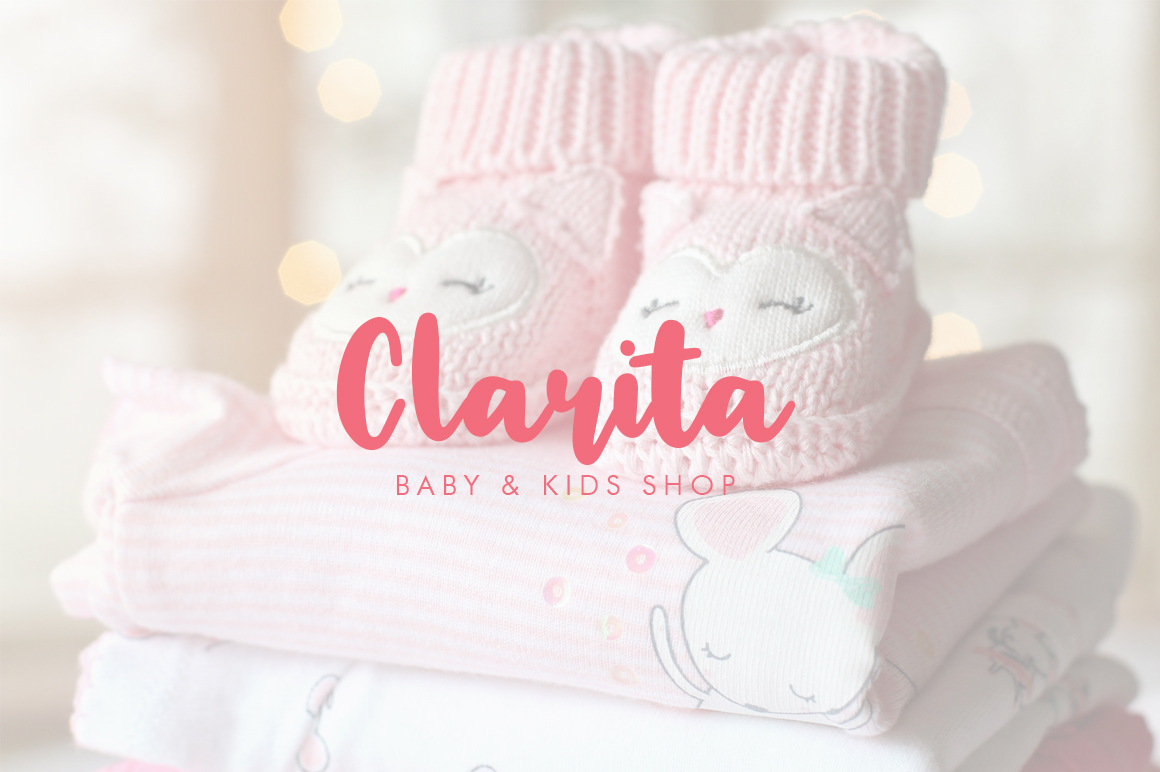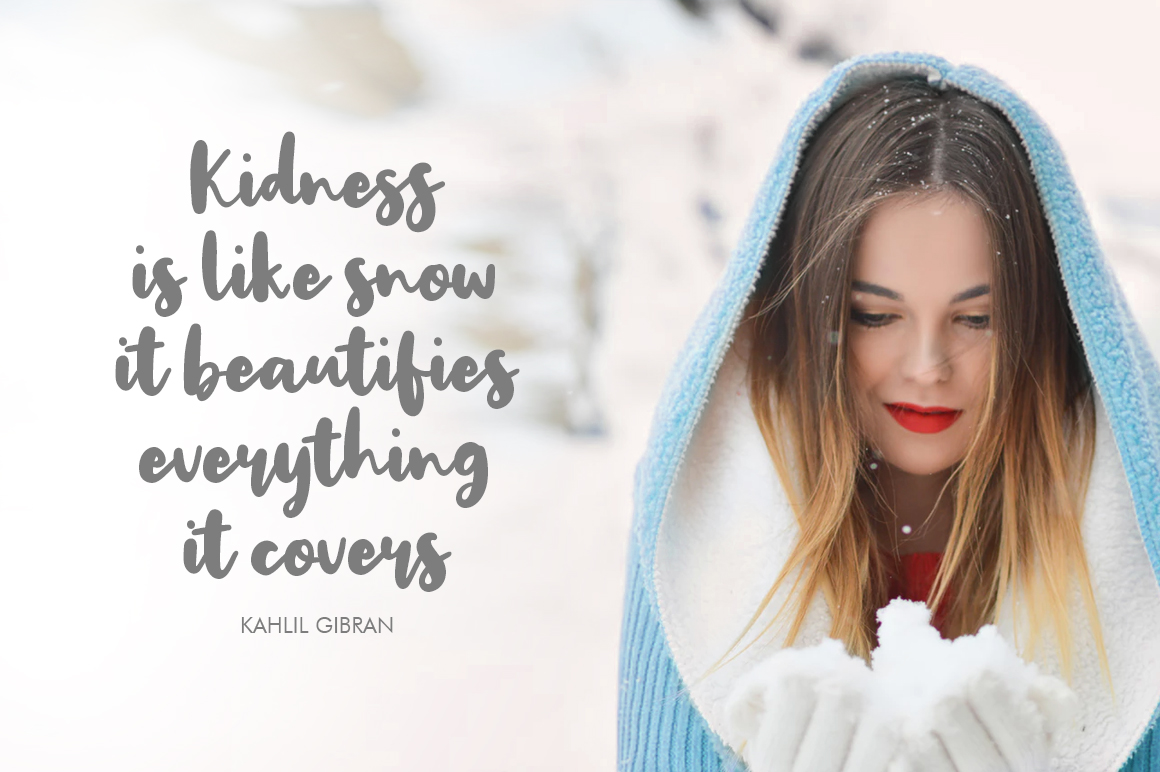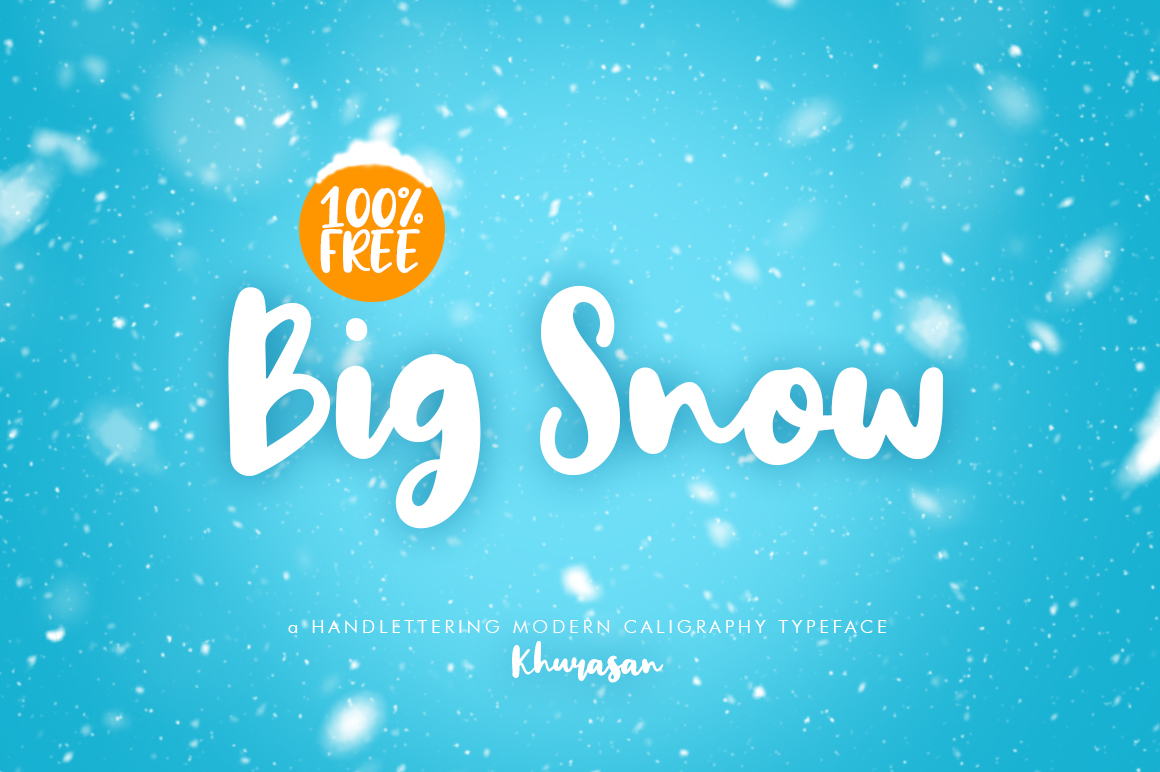
Big Snow Script Font
Hi Ladies and Gentleman! Introducing Big Snow Font. Big Snow designed and shared by khurasan. This font perfect for signature, branding, wedding, fashion, photography, title, poster, social media, ad banner, book cover, packaging, handwritten quotes, greeting cards and advertising. You can create more easily with alternatives to each letter and make it as if you wrote it yourself.